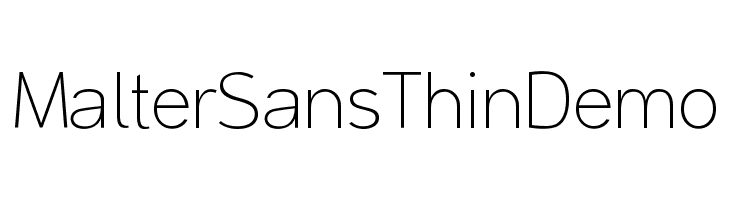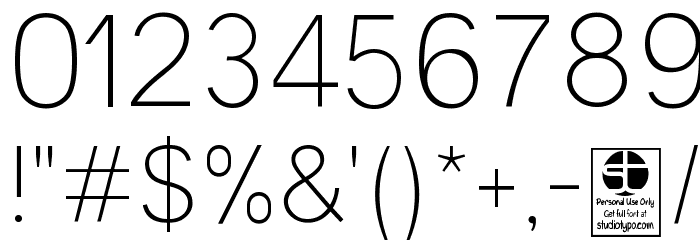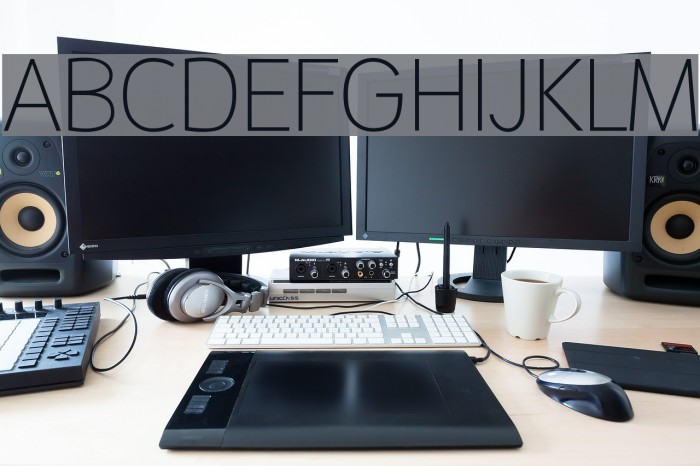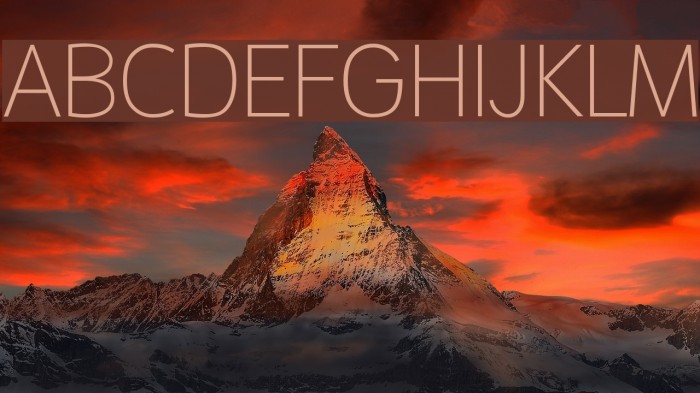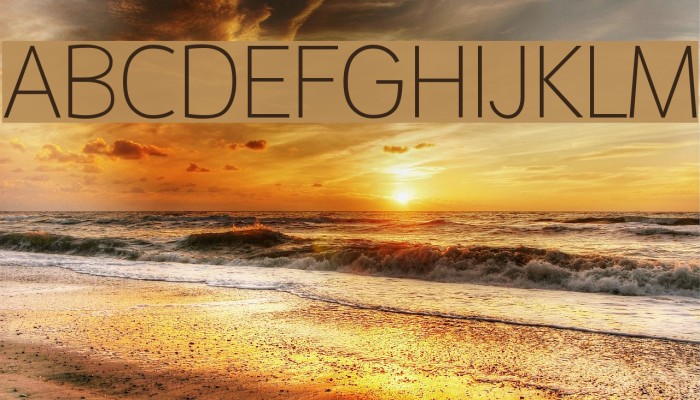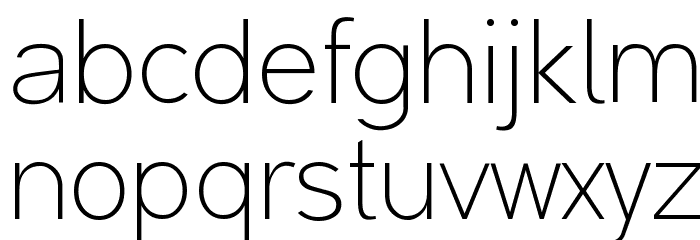
Malter Sans Thin Demo Font
Malter Sans Thin Demo Description
This font features a clean and minimalist design with a thin, elegant line weight. The characters are evenly spaced, providing a harmonious and balanced appearance. Its sans-serif style gives it a modern and sleek look, making it versatile for various design applications. The uppercase and lowercase letters are well-proportioned, and the numerals are clear and easy to read. Special characters are included, maintaining the font's overall aesthetic. This font is ideal for projects that require a contemporary and sophisticated touch.
A thin, modern sans-serif font with a clean and minimalist design from Uncategorized fonts.
- Proposed Projects: Ideal for branding, web design, editorial layouts, and minimalist graphic design projects.